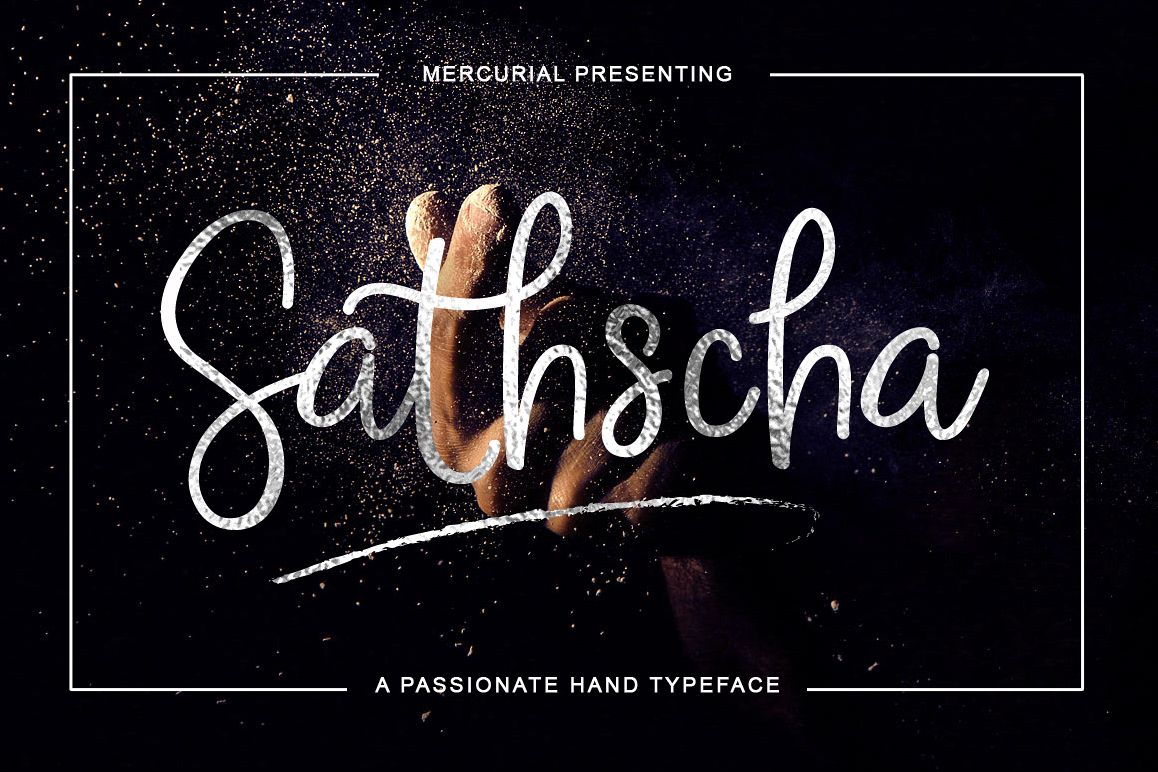
Introducing Sathscha, a typeface created stylized
handwriting is clearly visible charms, made more elegant impression
posts and more passionate. It comes with different styles that will make
a wonderful impression.
natural handwriting style will be very suitable for logos, branding,
posters, greeting cards, wedding, t-shirts, vintage, or anything
requiring a sprinkle of elegance.
The font has 356 glyphs, and supported by other languages.
also has several alternative letter, ligature and swash bonus that will
make it easier for designers do different variations of the design.